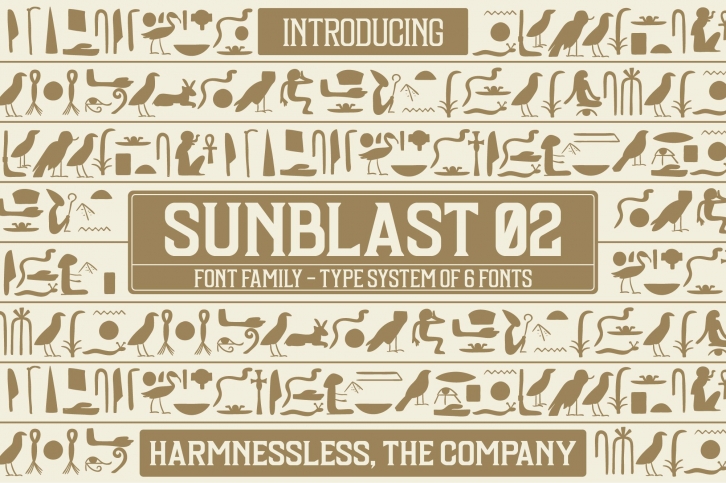
Sunblast 2.0 - Mid-west style modern serif contain of 6 fonts
Sunblast 2.0 is Display Font Family with 6 styles inspired by neo-psychedelic-stoner scene and mythical creatures of egyptian ancient. Designed in a modern Egyptian style.
More than 2400 glyphs was crafted inside Sunblast 2.0 font family.
Sunblast features:
- Uppercase & lowercase
- Punctuation & symbols